In the realm of design, minimalism is a powerful tool that communicates sophistication and clarity. This guide will introduce you to a curated selection of 20 free fonts, each embodying the essence of minimalistic design. These fonts, with their clean lines and simple forms, are perfect for creating designs that speak volumes without the clutter.
Whether you’re a seasoned designer or a beginner, these fonts will add a touch of elegance to your projects. From sleek sans-serif to subtle serif fonts, this collection will provide you with the tools to create stunning, minimalistic designs.
#1. Universe
Created by: Vincent Labonne
#2. Equal
Created by: Isaac Taracks
#3. Facile Sans
Created by: Twicolabs Design
#4. Thin Line
Created by: Gatis Vilaks
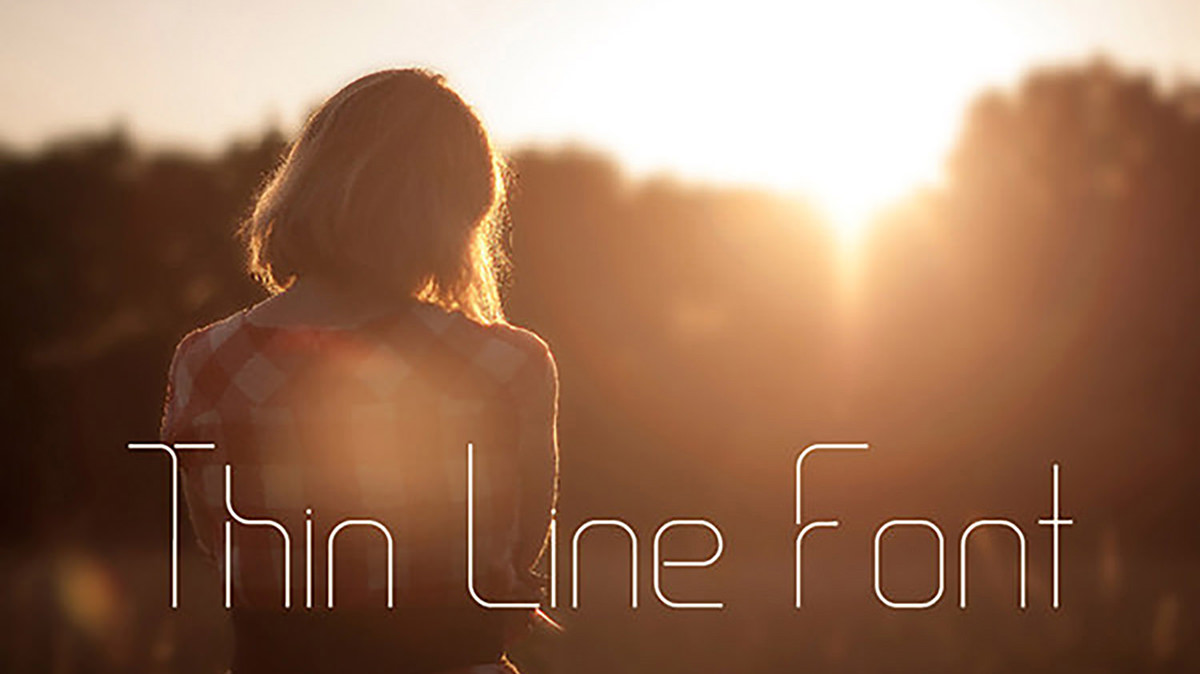
#5. Regina
Created by: Santino Calvo
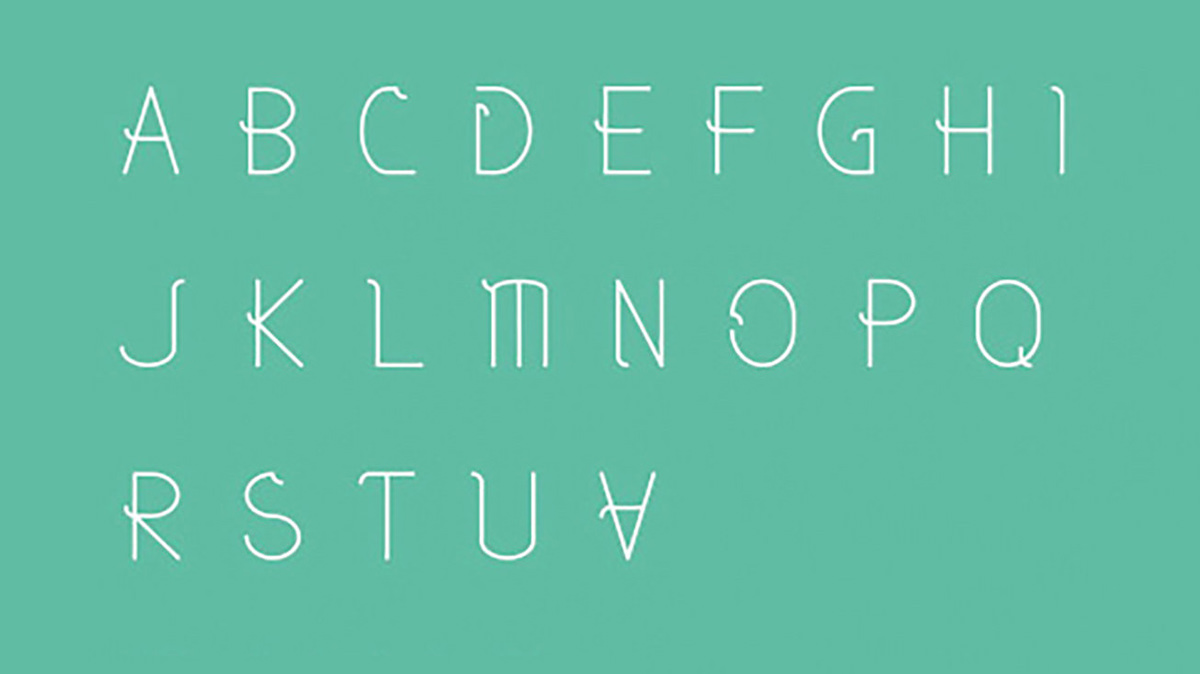
#6. Silent Lips
Created by: Vincent Labonne
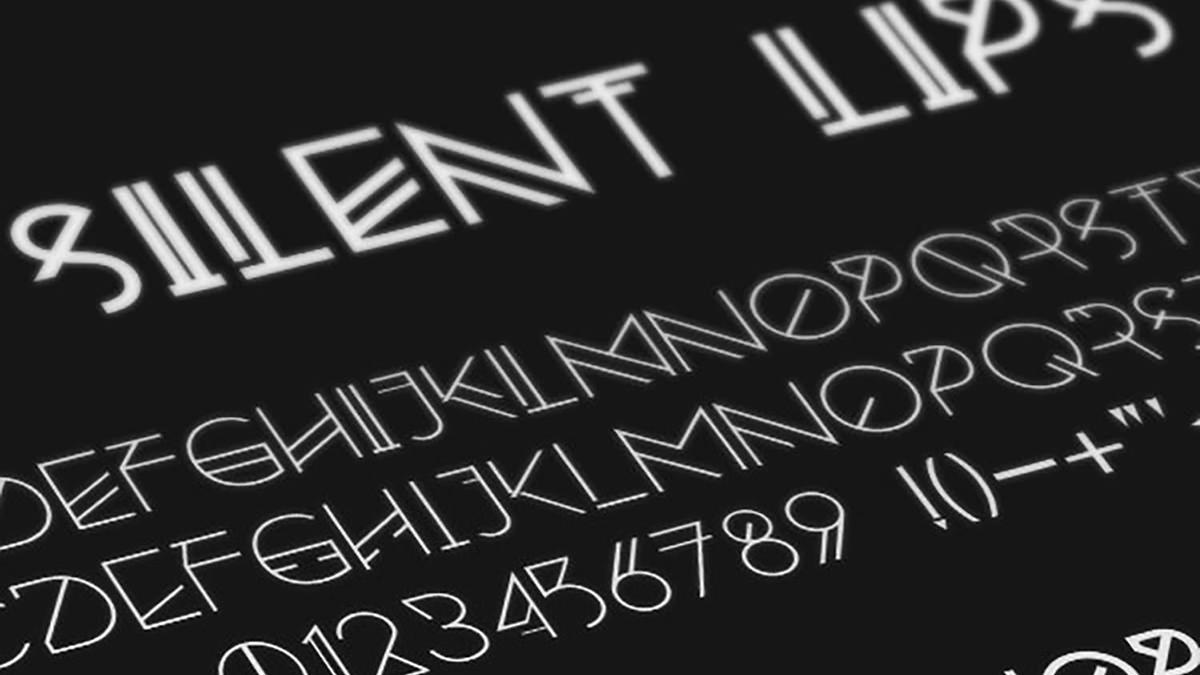
#7. Roboto 2014
Created by: Christian Robertson
#8. Landscape
Created by: Gita Elek
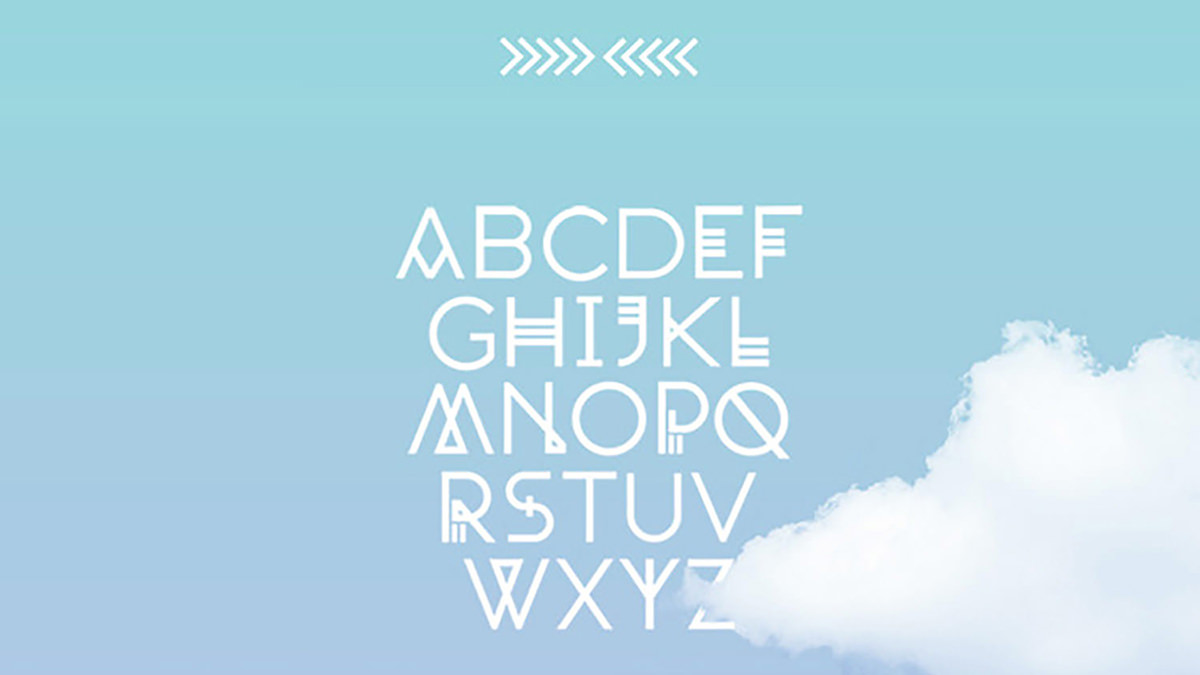
#9. PT Sans
Created by: Paratype
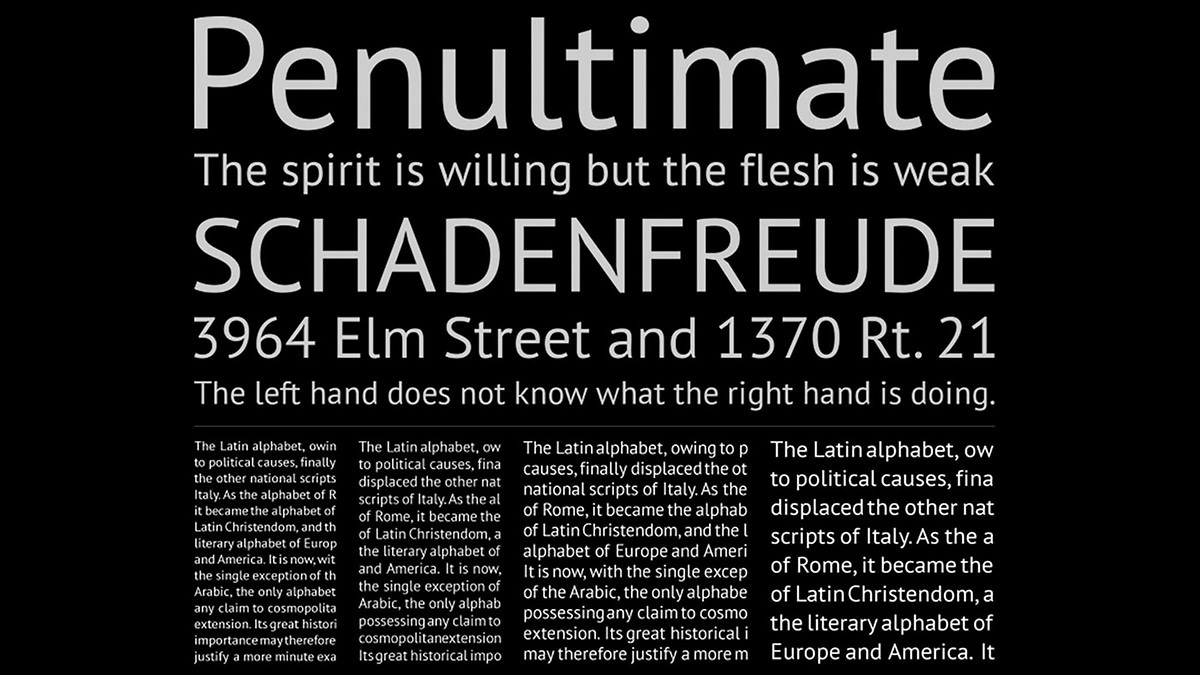
#10. Fira Sans
Created by: Mozilla
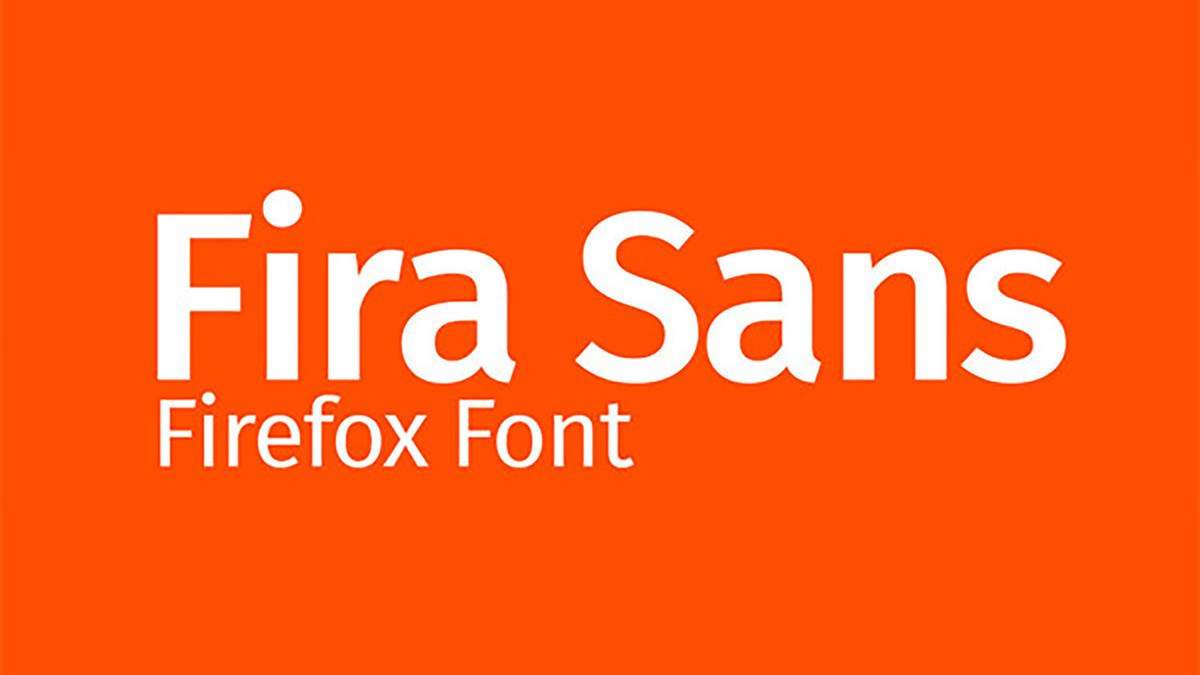
#11. Fox & Cat
Created by: Jo Aguilar
#12. Niles front
Created by: Nail Husyainov
#13. Uni Sans
Created by: Fontfabric
#14. REN
Created by: Andreas Leonidou
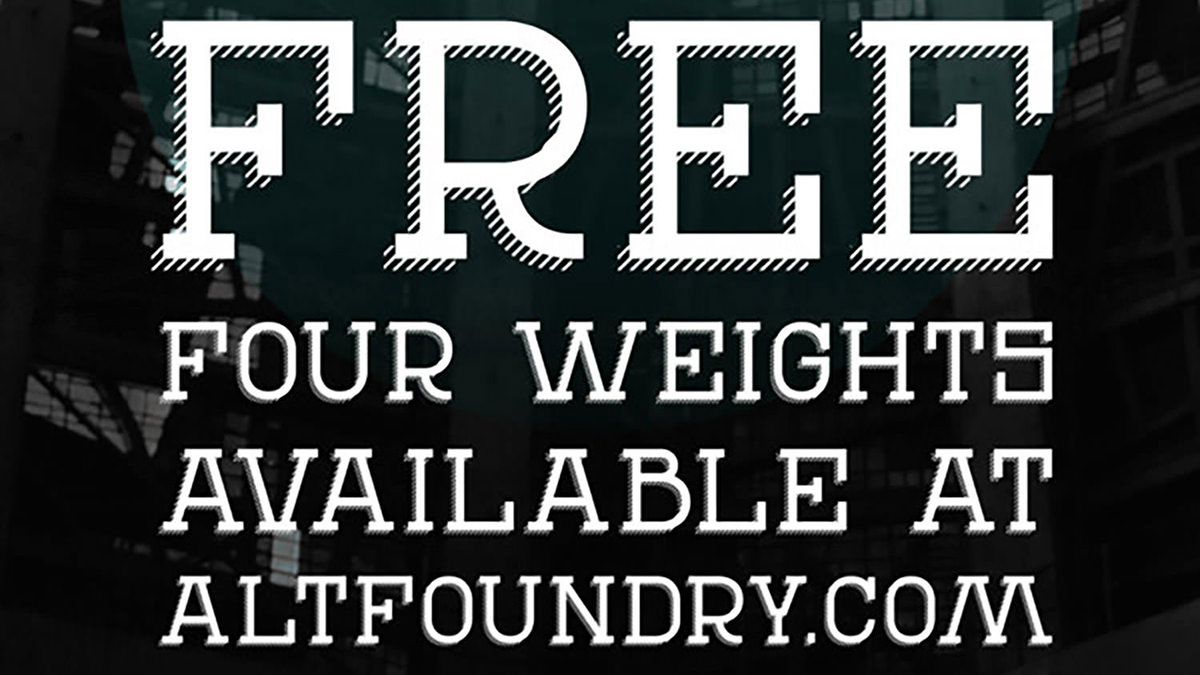
#15. Rise
Created by: Benito Ruiz
#16. Form
Created by: Blugraphic
#17. Dilem Handwritten
Created by: Dilem Akiner
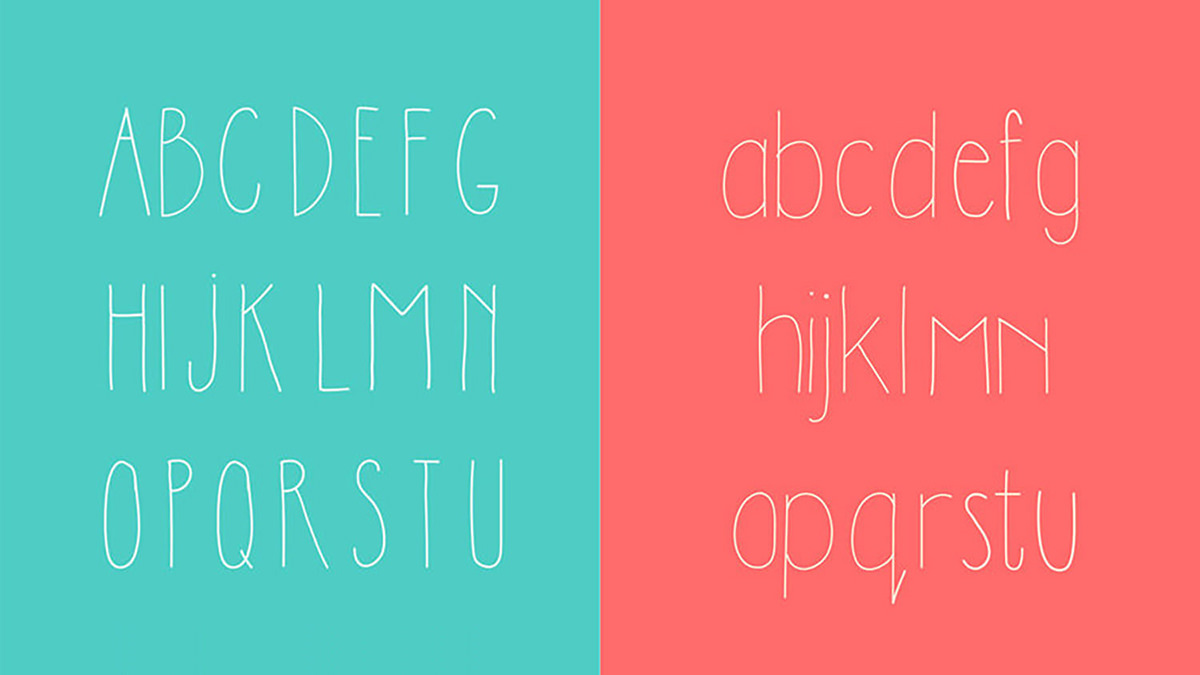
#18. Separator
Created by: Simon Stratford
#19. Focus
Created by: Egidio Filippetti
#20. Le Super Serif
Created by: SuperBruut